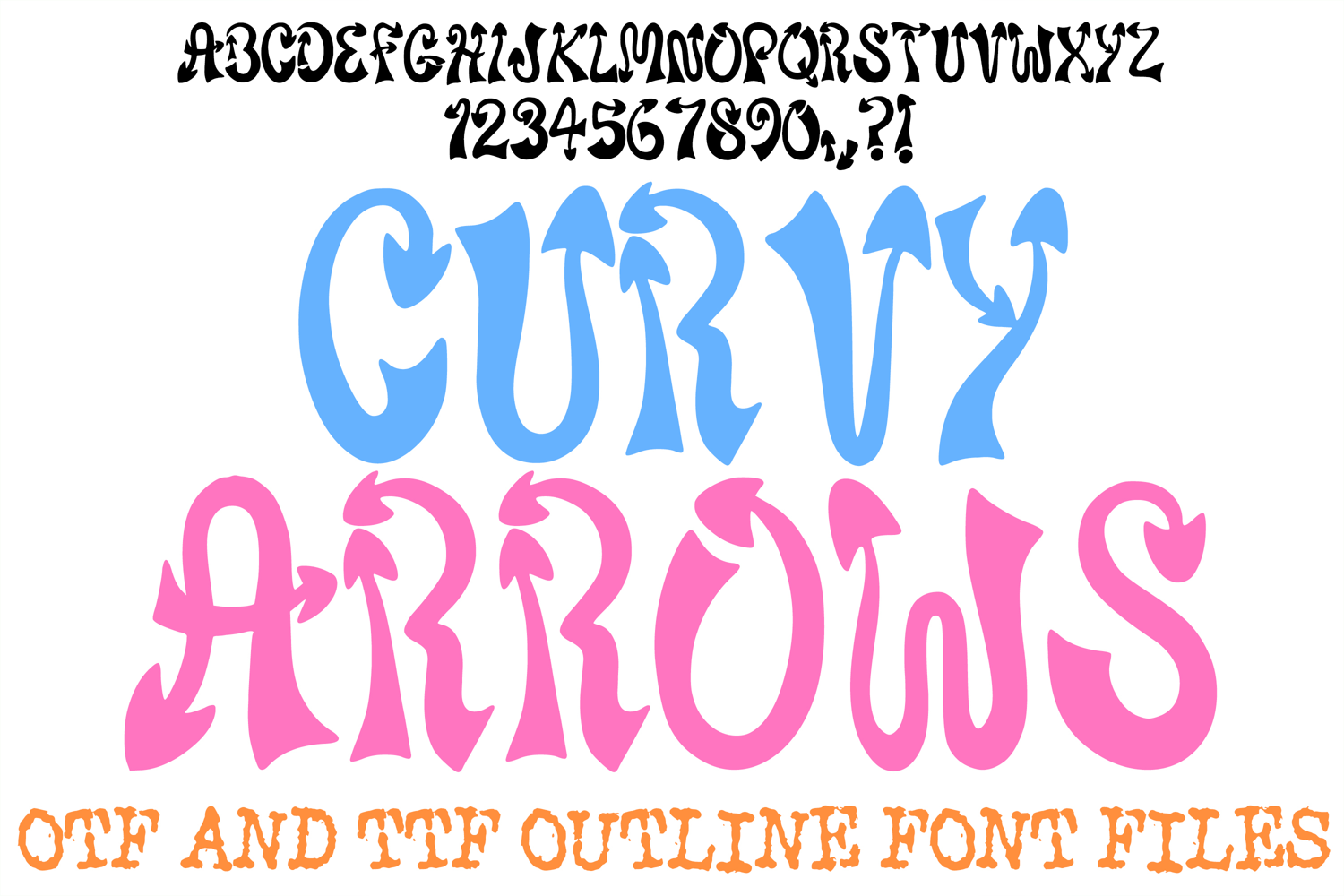
Curvy Arrows ABC Font Typeface Alphabet OTF TTF Illustration
Bring a whimsical, flowing vibe to your graphic layouts with Curvy Arrows, an installable display font featuring playful, undulating letterforms tipped with distinctive arrow points. Combining retro flourishes with dynamic arrow accents, this creative typeface offers an eye-catching look for branding, signage, and crafts.
Ideal For:
Crafts & Event Decor: Party banners, event signage, greeting cards, and whimsical sticker packs.
Apparel & Merch: Graphic t-shirts, hoodies, tote bags, and retro-inspired accessories.
Digital & Graphic Design: Poster headers, social media graphics, digital scrapbooking, and logo accents.
Vinyl & Cutting Projects: Craft machine creations, custom decals, stencil designs, and stationery artwork.